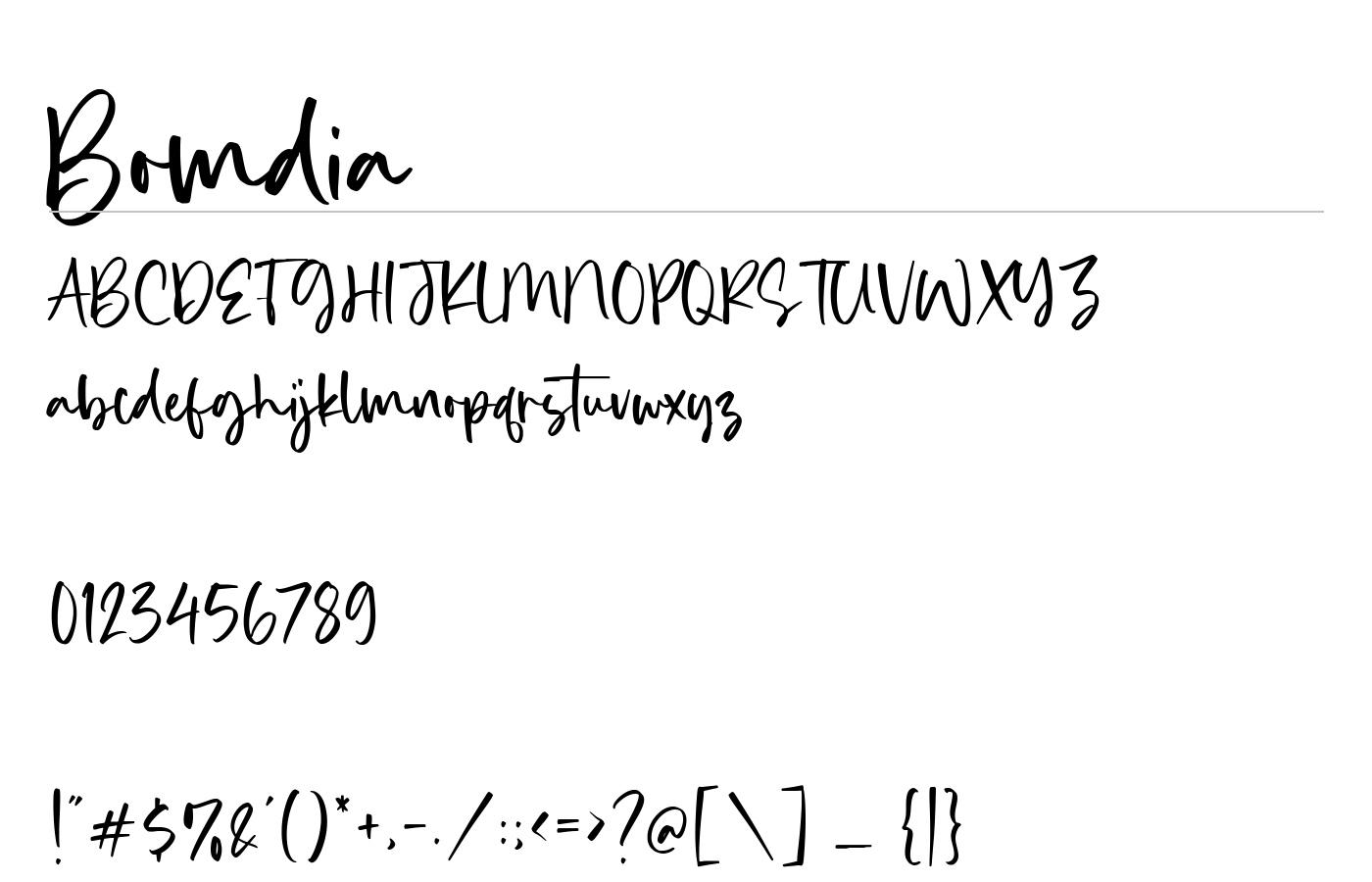
Bomdia is a casual handwritten script font with a lively and organic feel, featuring varied stroke widths that add personality and warmth. Its playful letterforms and natural flow make it ideal for creative branding, invitations, and informal designs seeking a friendly, approachable vibe. This font works well in headlines or short texts where a personal, artistic touch is desired.
Bomdia Font
About Bomdia Font